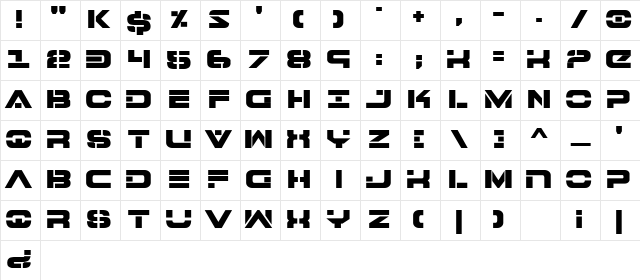
7th Service ExtraBold Free Font
7th Service ExtraBold ExtraBold
Complete 7th Service ExtraBold glyph index. Displaying only characters natively supported by 7th Service ExtraBold font.
Design Context for 7th Service ExtraBold
7th Service ExtraBold is a composed and adaptable typeface that performs quietly and consistently across a wide range of design contexts. Its bold stroke weight gives it real presence on the page.